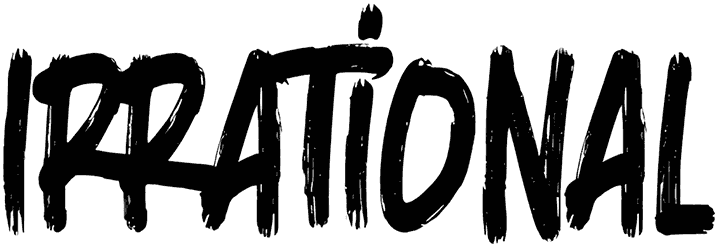
Brushot Font
If it’s a matter of lending a playful touch to your artwork, download Brushot now and consider it done already. It contains the same set of capital letterforms for both the uppercase and the lowercase versions with a difference in size.
Apply this creative brush font to your website banners, logos, signs, T-shirts, etc. and your output will take on a stylish appearance that charms any viewer.
Brushot by Nirmana Visual,
Designed by: Nirmana Visual